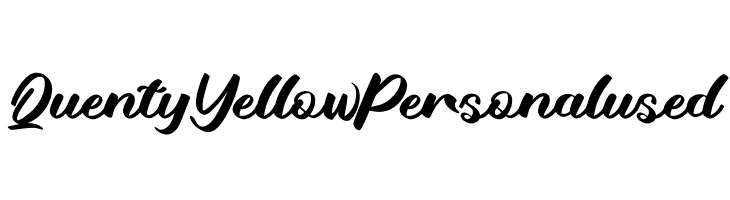
A bold, playful handwritten font with rounded strokes and dynamic letterforms.
A bold, expressive script font with flowing, cursive letterforms.
A bold, flowing script font with elegant, cursive letterforms.